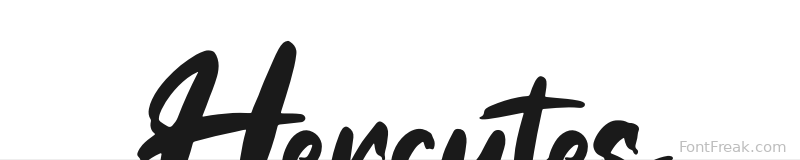
Hercutes
About Hercutes
Hercutes, designed by Perspectype Studio in 2021, is a striking display font that seamlessly blends modern aesthetics with playful character. As a decorative typeface, it boasts bold strokes and a unique flair, making it an ideal choice for attention-grabbing designs. The font features a medium stroke weight, offering a balanced contrast that enhances readability while maintaining a distinctive visual impact. Its spacing is well thought out, ensuring that each letter stands out without appearing crowded, allowing for effective communication in various applications.
The Hercutes font is particularly well-suited for a range of creative projects. Graphic designers may find it perfect for crafting eye-catching wedding invitations that exude charm and elegance. Additionally, its playful nature makes it an excellent choice for movie posters, where a bold statement is essential to attract viewers. Restaurant menus can also benefit from Hercutes, adding a touch of personality that mirrors the uniqueness of the culinary experience. Small business owners can leverage this font in branding materials, ensuring their promotional content stands out among competitors. Content creators will appreciate its versatility, making it suitable for social media graphics and digital marketing campaigns.
Targeted at graphic designers, small business owners, and content creators, Hercutes appeals to those who seek a balance between creativity and functionality in their typography. The font's unique design elements set it apart, making it a memorable choice for any project. With the Hercutes font free download available, you can easily incorporate this standout typeface into your work, enhancing your designs and ensuring they leave a lasting impression. Its ability to convey both fun and professionalism makes Hercutes a must-have addition to your font library.